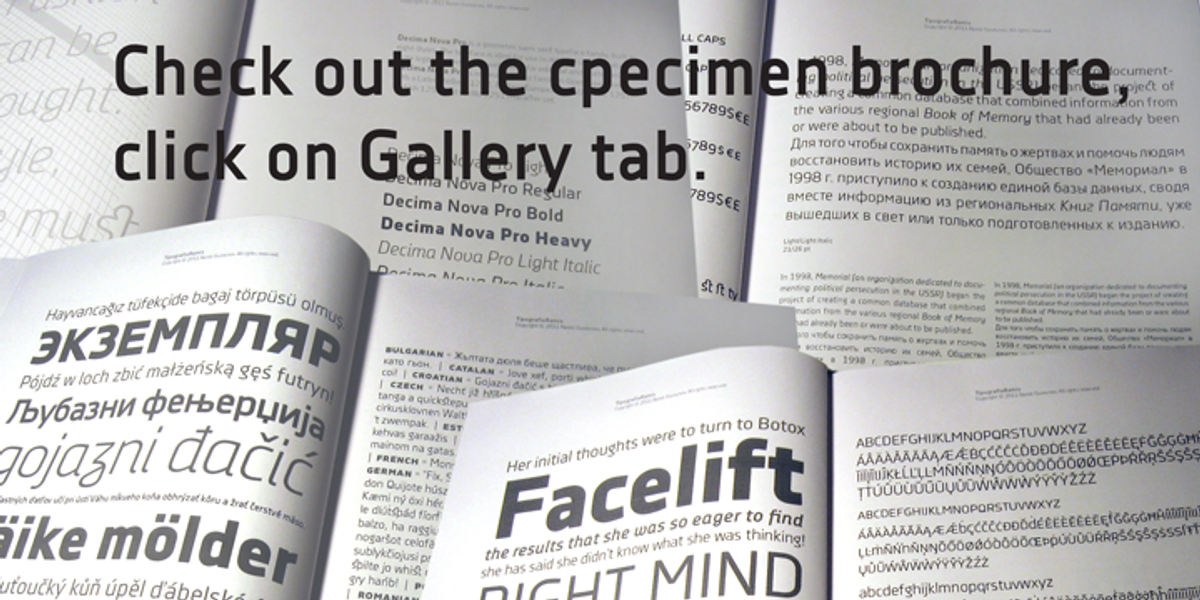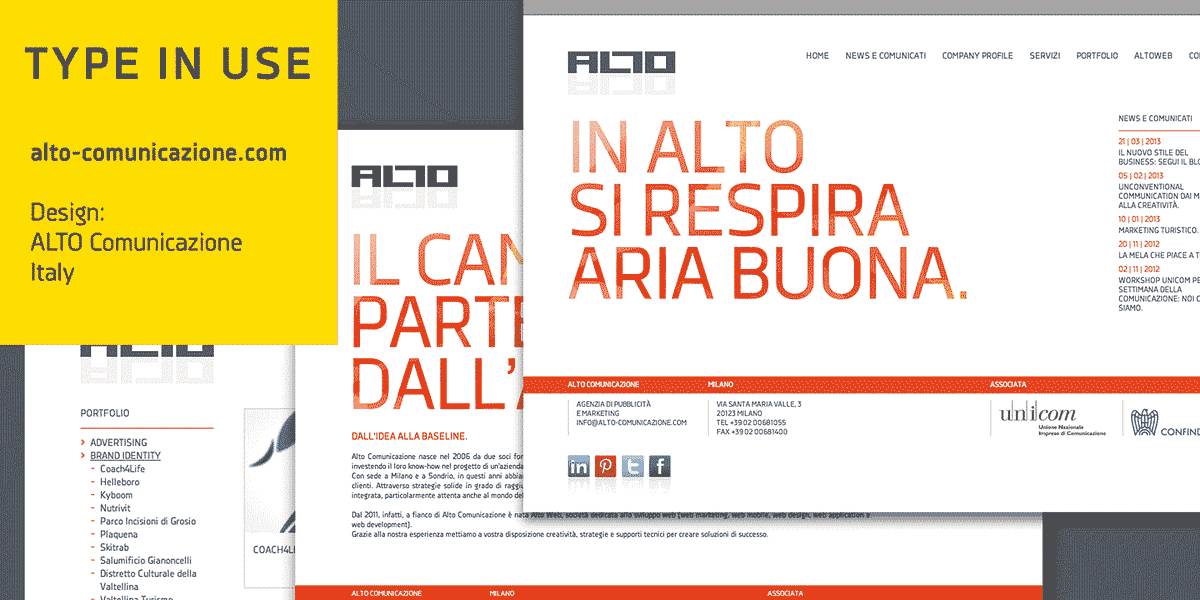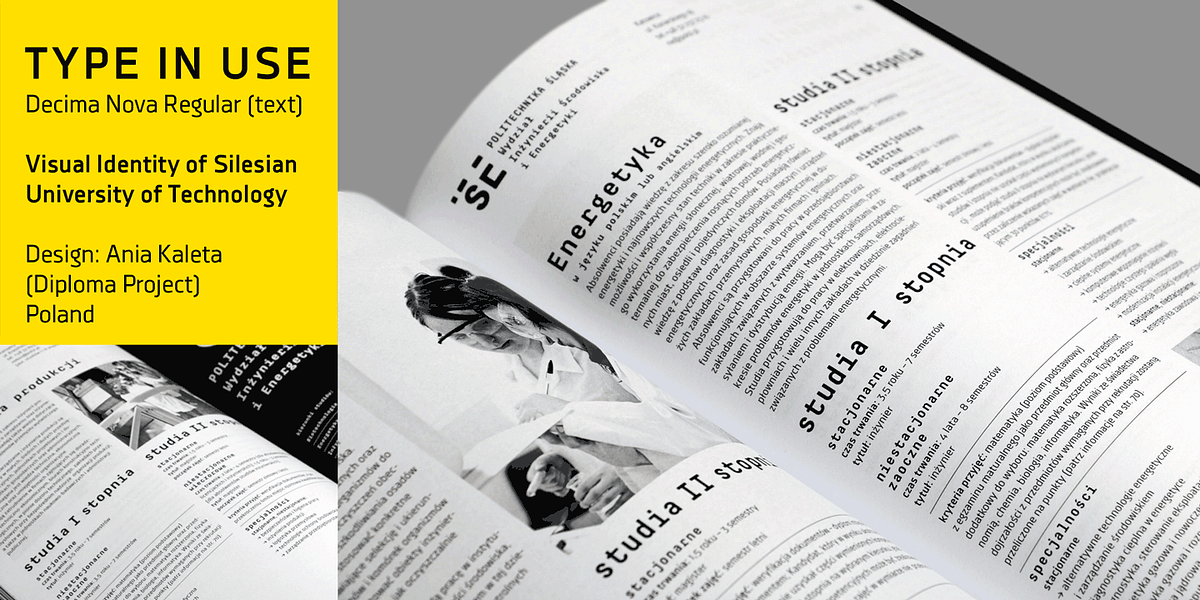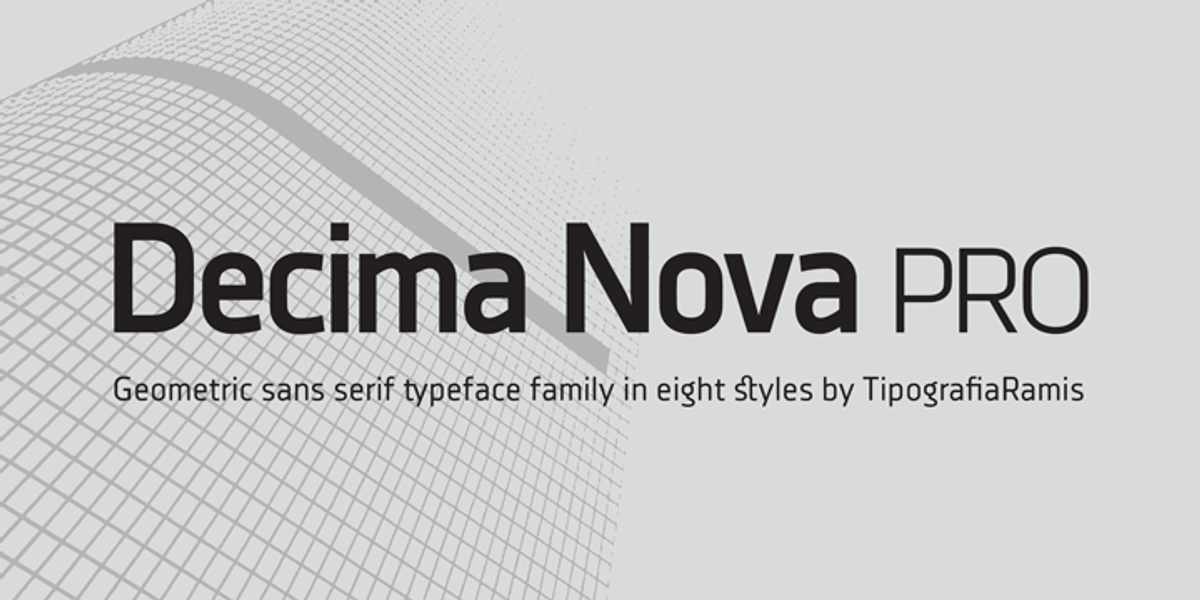
Decima Nova Pro
Decima Nova Pro is a versatile geometric sans serif typeface family designed for both display and text applications. Its eight styles offer a range of weights from thin to bold, suitable for various design needs. The font features extended language support, small caps, multiple numeral styles, a slashed zero, and ligatures.